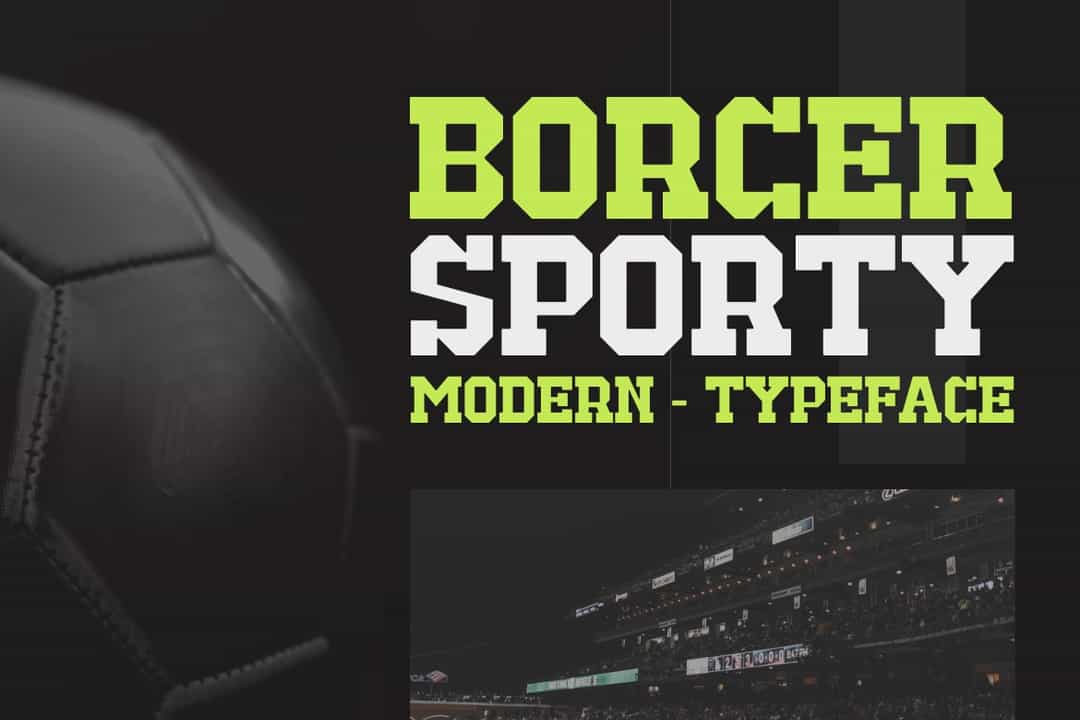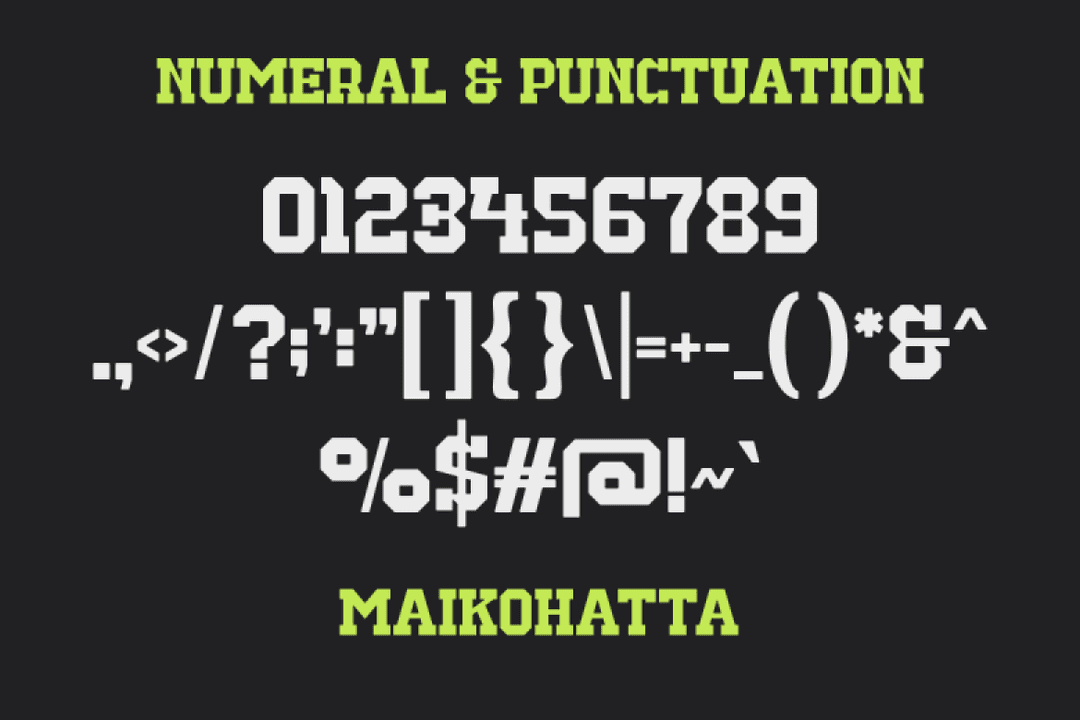
Discover Borcer Sporty Font, part of the Slab Serif Display collection—a versatile and unique font perfect for adding a personal touch to your projects. Download it for free and enjoy crafting designs with style, from invitations to social media posts. This font is available exclusively for personal use, giving you the freedom to create without limits. Unlock your creativity with Borcer Sporty Font today!
Borcer Sportsy is a bold slab serif font designed to make any design stand out. It was inspired by sports, featuring striking lines inspired by athleticism and ideal for creating dynamic imagery for jersey designs, team league uniforms, movie documenters, film logo posters, game book cover titles and headlines as well as many other projects.